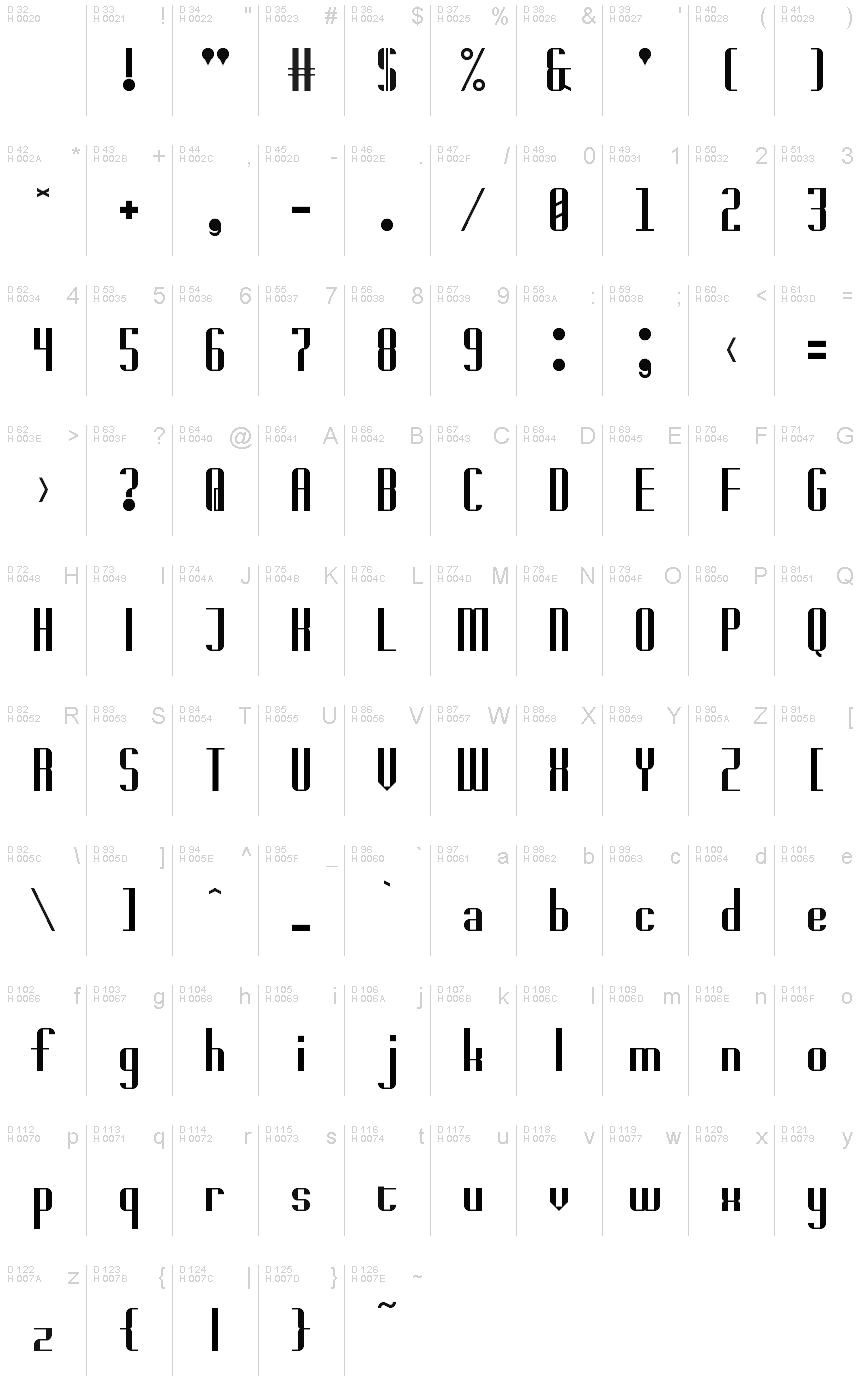
Badwolf Regular
An experiment in subtle asymmetry.
Designer description: An experiment in subtle asymmetry (it's most evident in the upper case).
Version 1.7 (14Sep2018) - ExtL-A added, GFB completed, Greek started
Version 1.6 (18Aug2018) - Changed name from "RC Badwolf" to "Badwolf"
Version 1.5 (15Aug2018) - altered 2357,ð
Version 1.4 (14Aug2018) - altered space width and mw